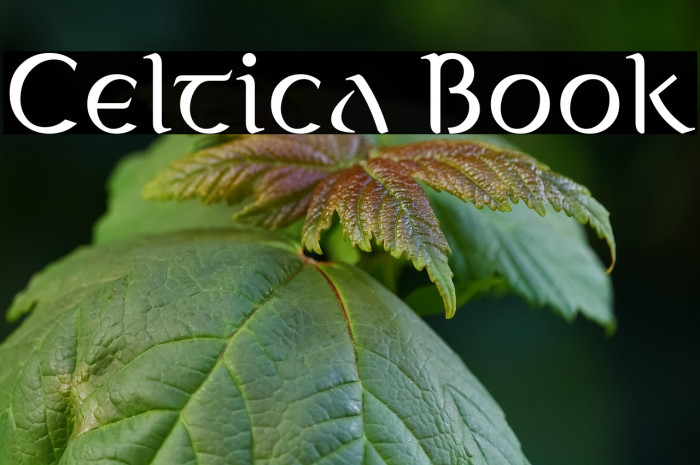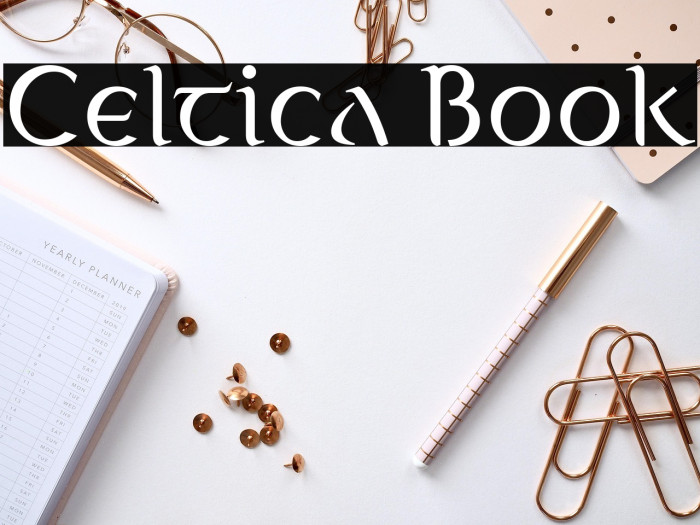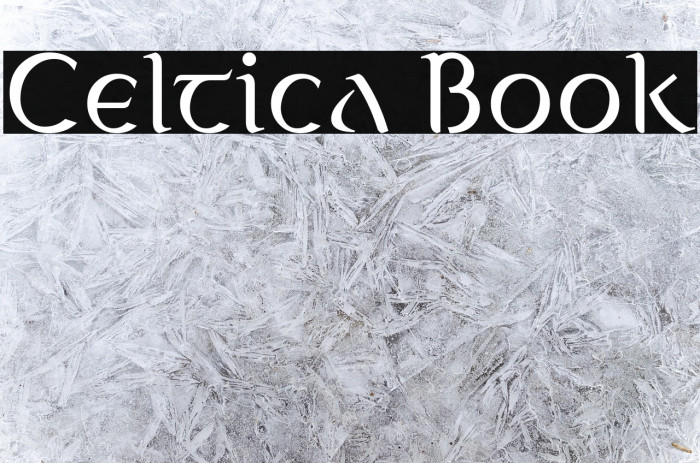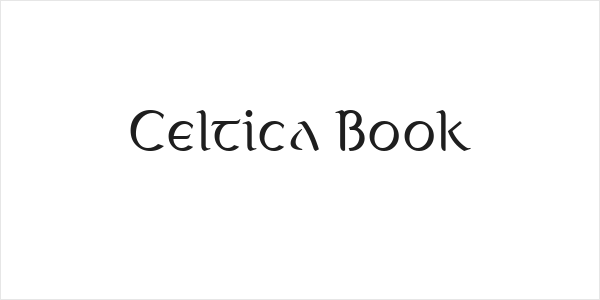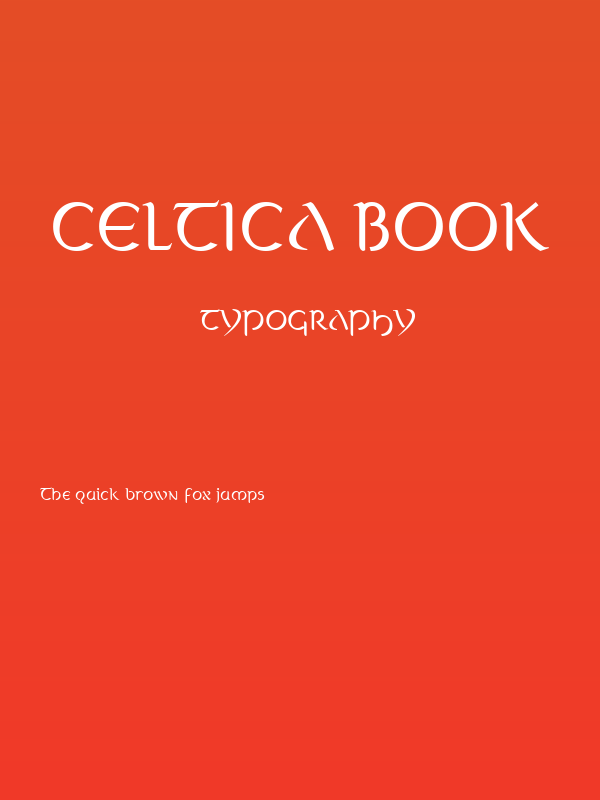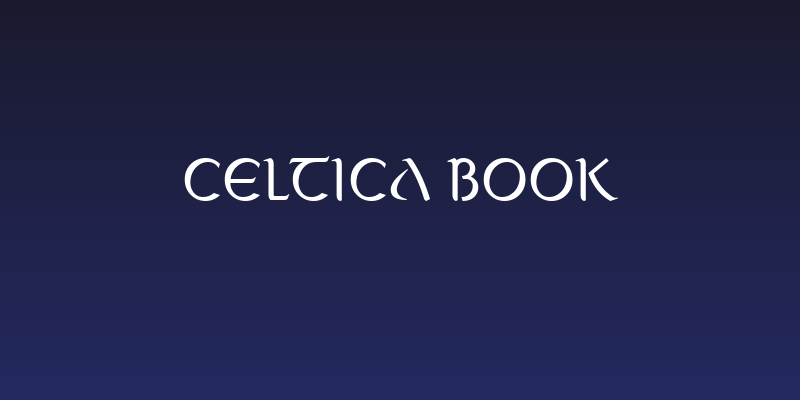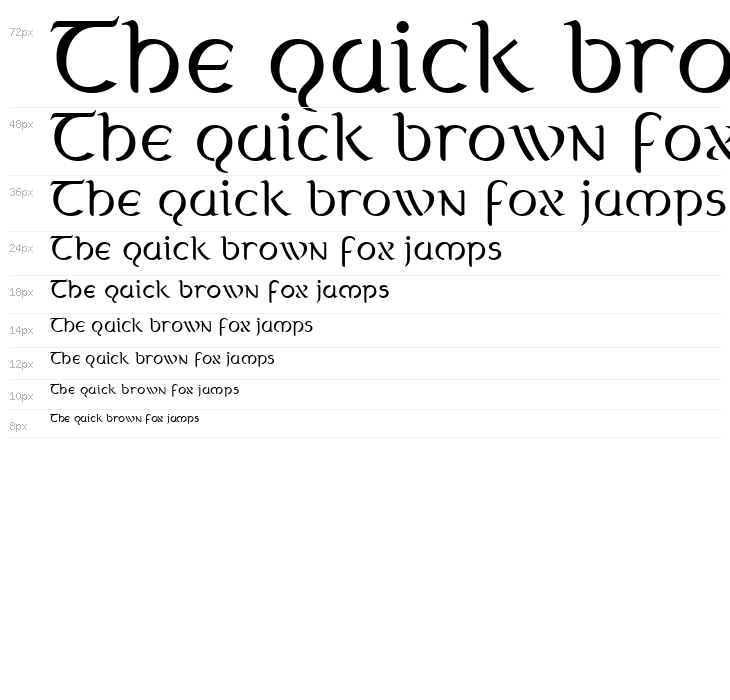
Celtica Book Font
Celtica Book Description
This font features a unique blend of traditional and modern elements, characterized by its distinct, flowing curves and sharp angles. The uppercase letters exhibit a bold presence with a slight medieval flair, while the lowercase letters maintain a consistent style that complements the uppercase. The numerals are crafted with a similar attention to detail, ensuring readability and aesthetic appeal. Special characters are designed to match the overall theme, providing a cohesive look across all glyphs. The font's design is both decorative and functional, making it suitable for a variety of creative applications.
| Proposed Projects | Ideal for projects requiring a touch of elegance and tradition, such as invitations, branding, and historical-themed designs. |